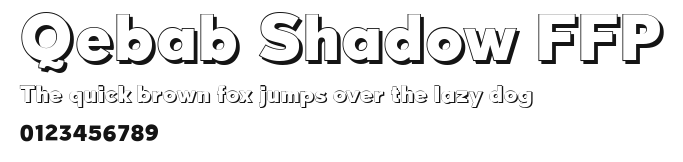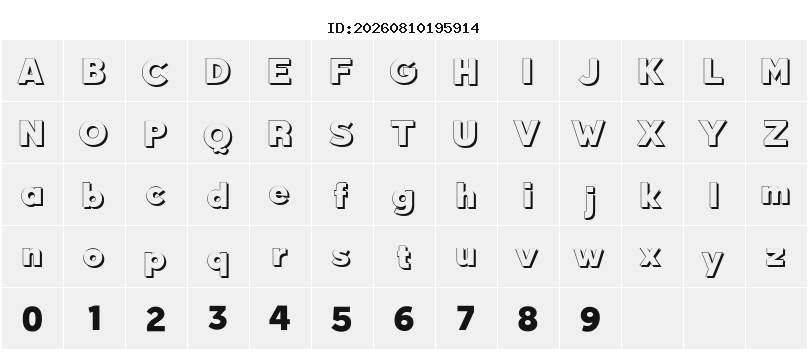
• Font Name: Qebab Shadow FFP
• Designer: deFharo
• Manufacturer: Fernando Haro
• Description: Font Sans-serif with Shadow very readable with advanced OpenType and decorative swashes to the composition of complex texts.
About Qebab Shadow FFP.ttf
Qebab Shadow FFP.ttf is a modern, elegant sans-serif font designed for ultimate readability and visual harmony. Perfect for branding, headlines, web design, and print materials.